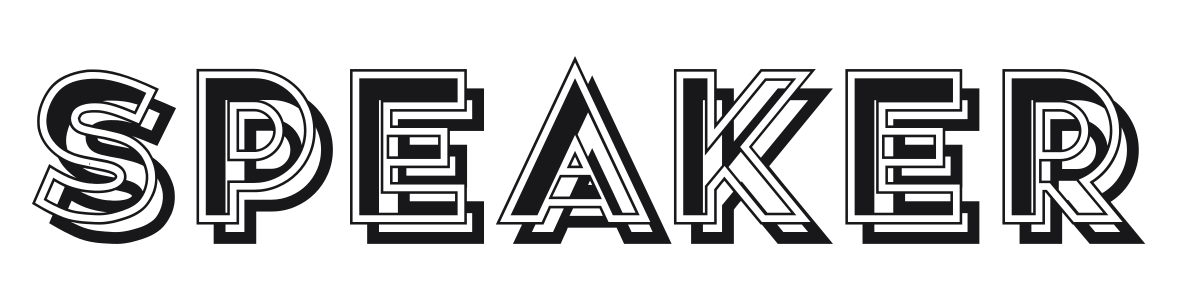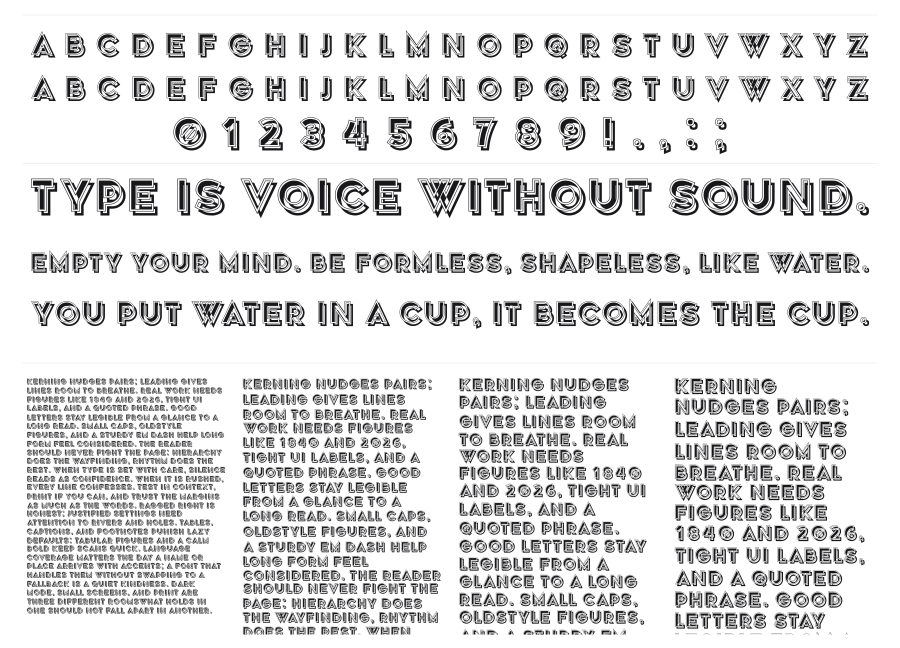
Speaker
Speaker is a bold, layered display serif built on a retro American poster tradition. Each character is constructed with a heavy outer slab-serif shell, a dramatic shadow layer, and an inline white stripe that punches through the center to create a rich three-dimensional effect. It commands attention at large sizes and carries the energy of old circus bills and mid-century entertainment graphics.